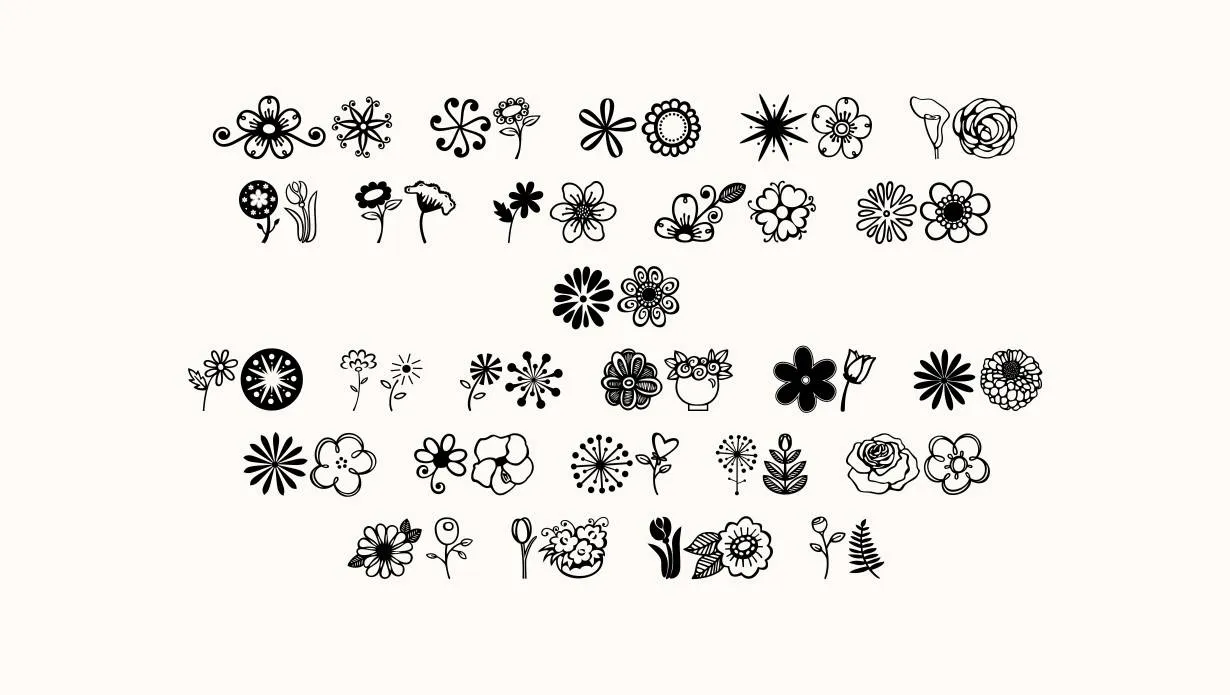
Janda Flower Doodles Font adds a whimsical and playful touch to your designs. With its charming and hand-drawn floral elements, this font is perfect for projects that seek a lighthearted and cheerful vibe. Use it for greeting cards, invitations, or any design where a touch of floral elegance is desired.
The font’s technical details showcase the intricate doodles and lightweight design, contributing to its overall delightful and creative appearance. Janda Flower Doodles Font is crafted for projects that want to bring a sense of joy and creativity to their designs, adding a touch of hand-drawn charm.
| Name | Janda Flower Doodles Font |
| Designer | Kimberly Geswein |
| Style | Dingbats |